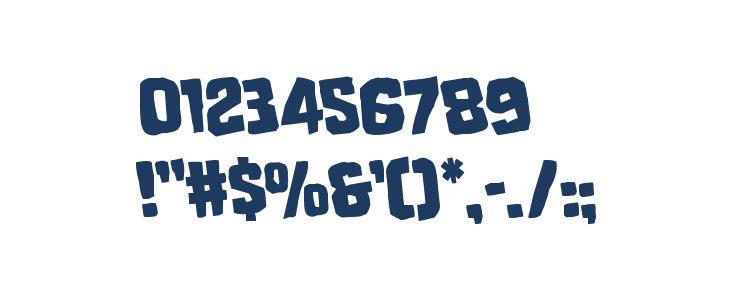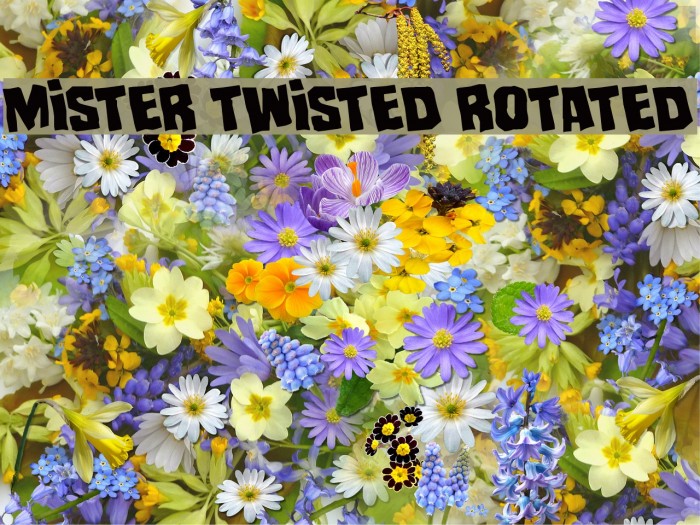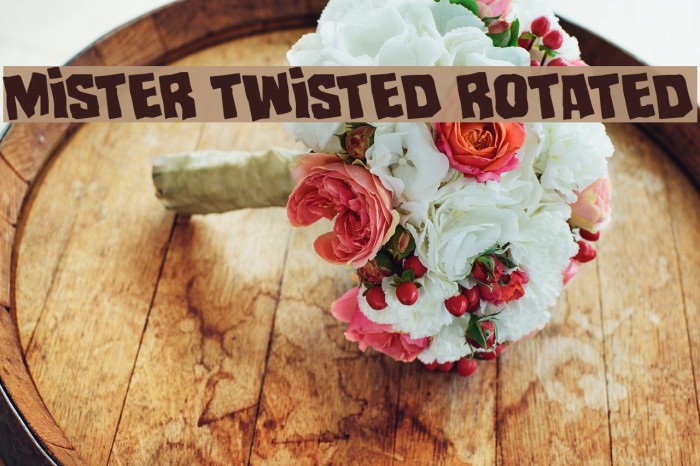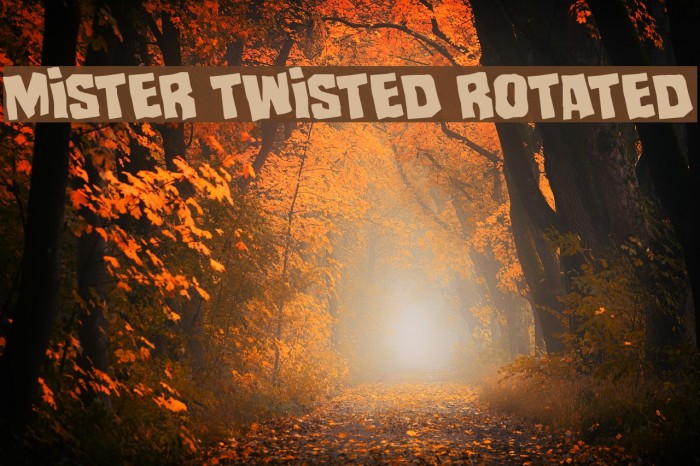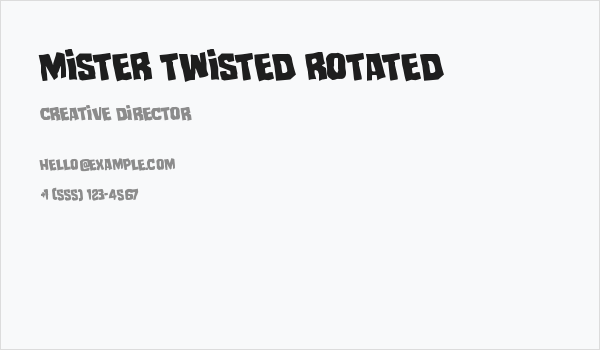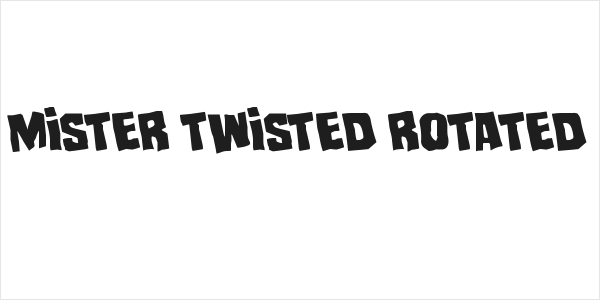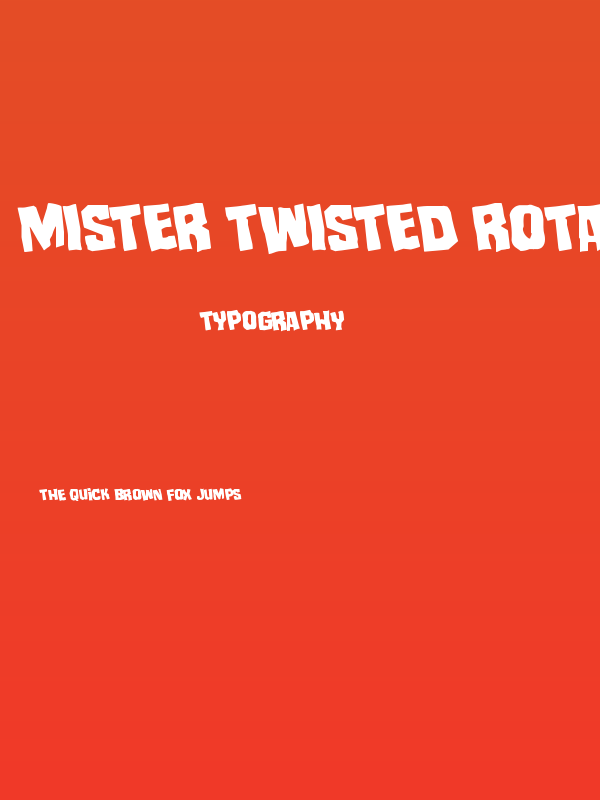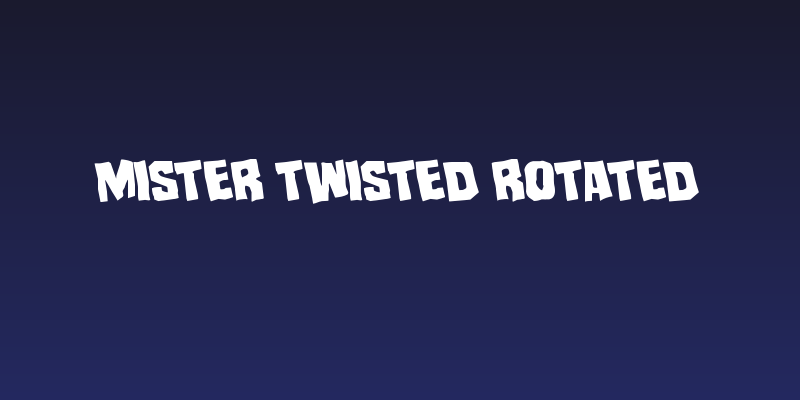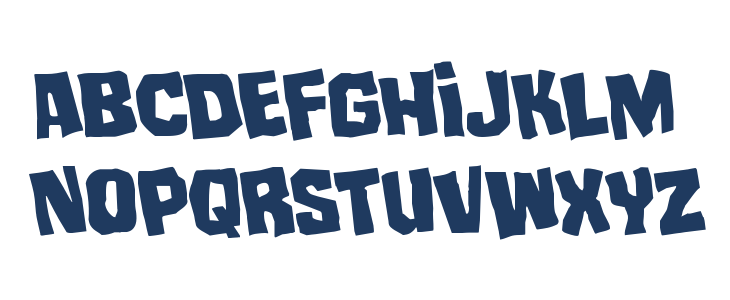
Mister Twisted Rotated Font
Mister Twisted Rotated Description
This font features a playful and dynamic style with a twisted, rotated appearance that gives each character a unique and quirky look. The bold, irregular shapes create a sense of movement and energy, making it stand out in any design. The uppercase and lowercase letters maintain a consistent style, while the numbers and special characters follow the same whimsical theme. This font is perfect for projects that require a fun and informal touch, such as children's books, party invitations, or creative posters.
| Proposed Projects | Ideal for children's books, party invitations, creative posters, and any project needing a fun, informal touch. |